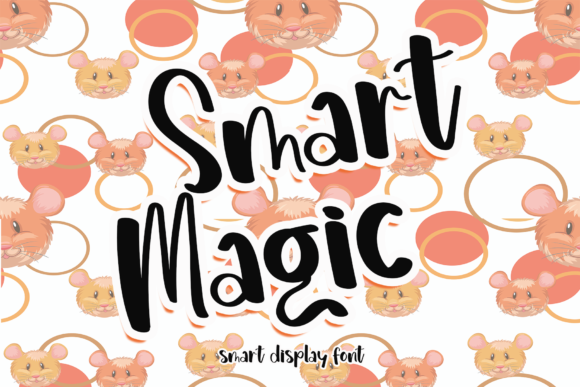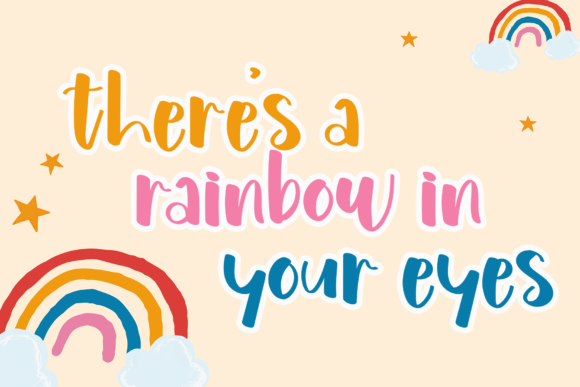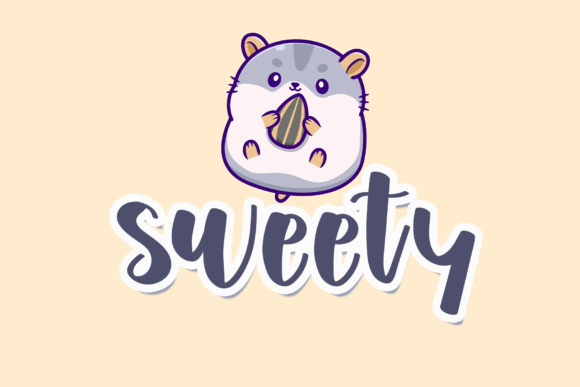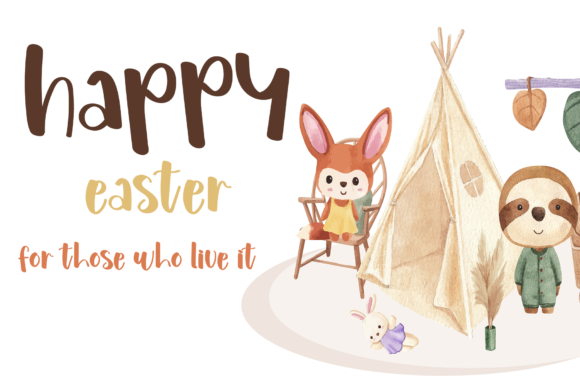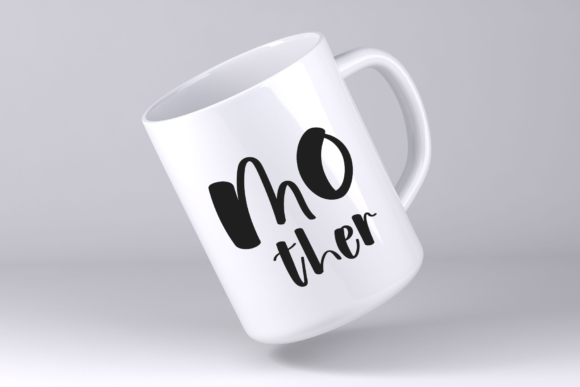
About Smart Magic Font
“Smart Magic” emerges as a clean, relaxed, and friendly handwritten font, embodying versatility with its neat and simple style. Tailored to suit a wide spectrum of designs, this font has the potential to become your cherished go-to, seamlessly fitting any occasion with its universal appeal.
The charm of “Smart Magic” lies in its clean and straightforward design, exuding a sense of simplicity that effortlessly translates across different applications. The relaxed and friendly nature of the handwritten script adds a touch of approachability, making it suitable for a myriad of design projects.
Its clean lines make “Smart Magic” a perfect choice for a range of designs, from professional to casual. The font’s simplicity ensures readability and visual clarity, making it adaptable to various contexts, such as product packaging, branding projects, social media content, and more.
In the realm of professional applications, “Smart Magic” brings a refreshing and friendly vibe without compromising on clarity. Whether used for corporate communications, presentations, or business collateral, the font maintains a clean and polished appearance, making information easily digestible for the audience.
For product packaging, “Smart Magic” excels in its ability to convey essential information with a touch of friendliness. The clean lines ensure that details stand out, while the relaxed and friendly demeanor of the font adds a human touch to the packaging design, making it appealing to a broad audience.
In branding projects, “Smart Magic” becomes a reliable choice, acting as a visual representation of approachability and simplicity. Its friendly handwritten style can convey a sense of trust and authenticity, helping to establish a connection between the brand and its audience.
Social media, with its diverse content needs, finds a versatile companion in “Smart Magic.” Whether used for captions, quotes, or promotional posts, the font’s relaxed and friendly nature adapts seamlessly to various visual styles, enhancing the overall aesthetic of your social media presence.
When it comes to casual and celebratory occasions like weddings, “Smart Magic” adds a touch of warmth and friendliness to invitations and other materials. Its clean yet approachable style complements the joyous atmosphere of such events.
In essence, “Smart Magic” transcends the confines of a mere font; it becomes a design ally that effortlessly navigates through different styles and occasions. With its clean, relaxed, and friendly handwritten charm, this font is poised to become a staple in your creative toolkit, offering a reliable and versatile option for a myriad of design endeavors.